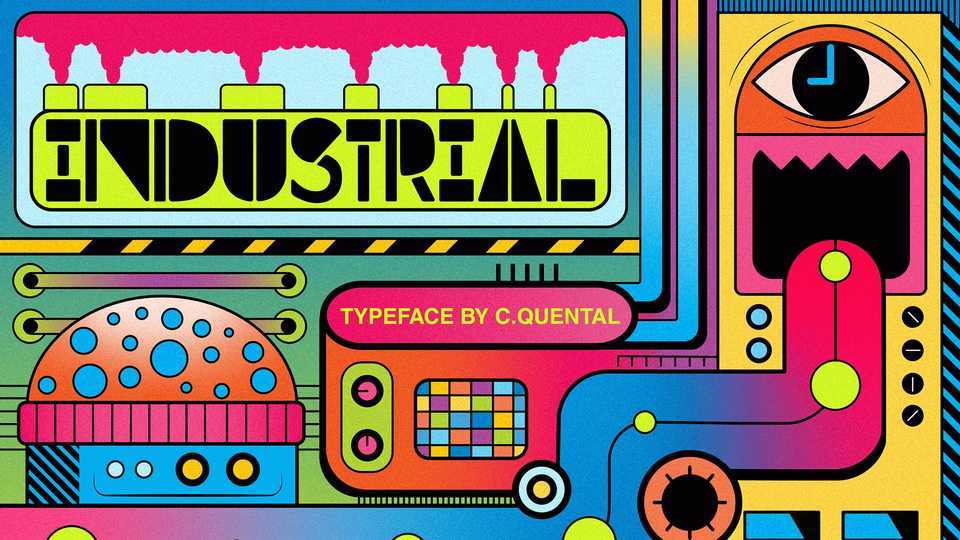
Download Industrial font, a display typeface inspired by industrial structures. The font uses elementary geometric shapes to build its characters, lending it an energy and punch.
Designer: Cecilia Quental